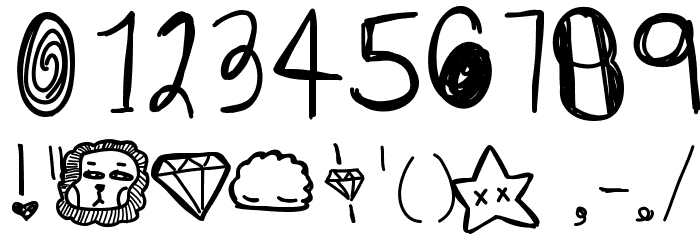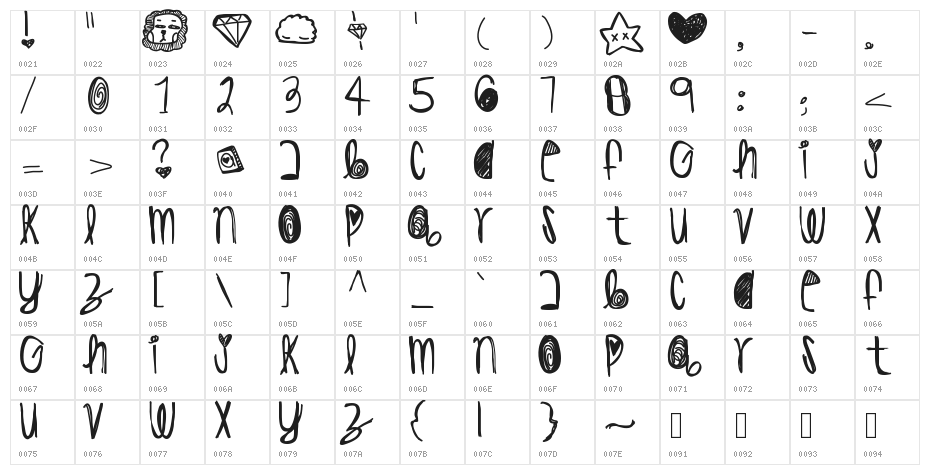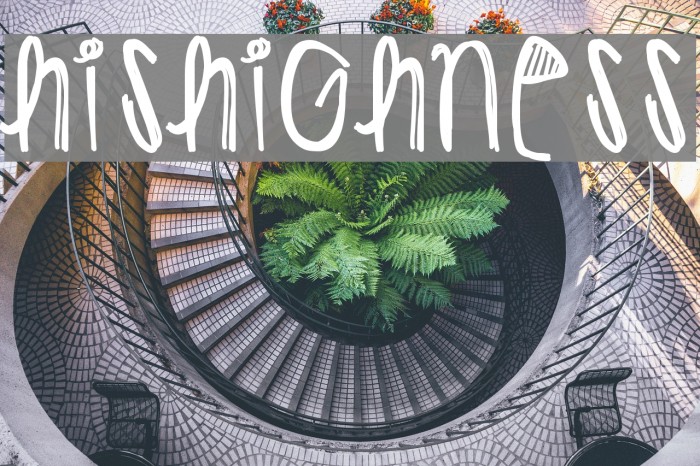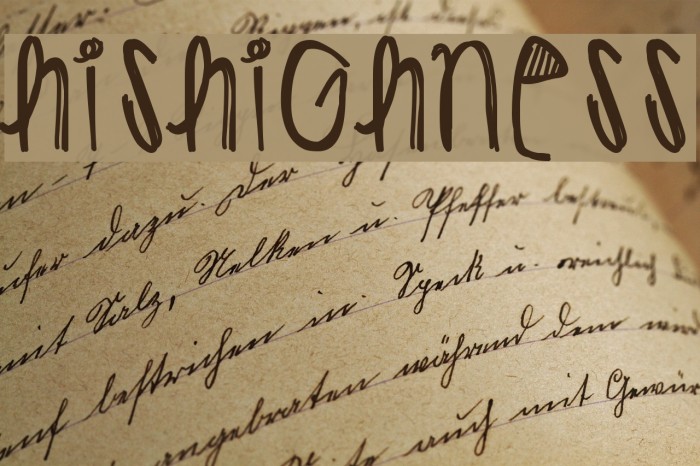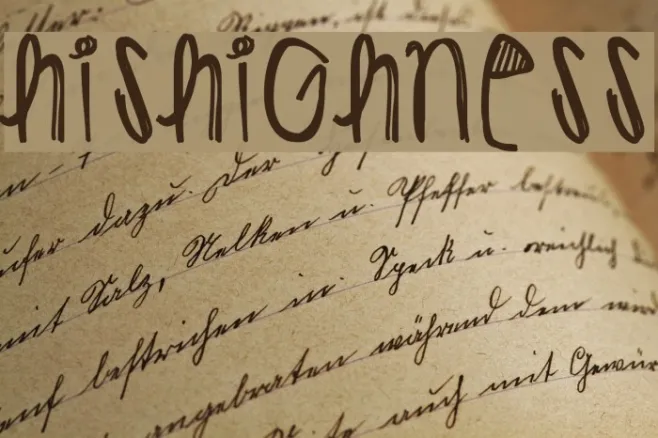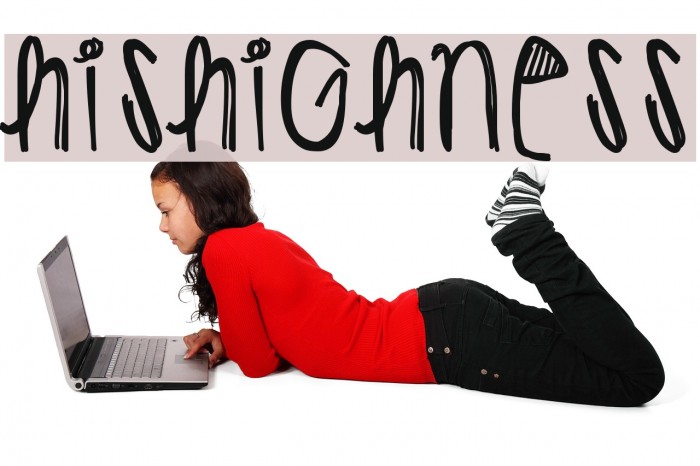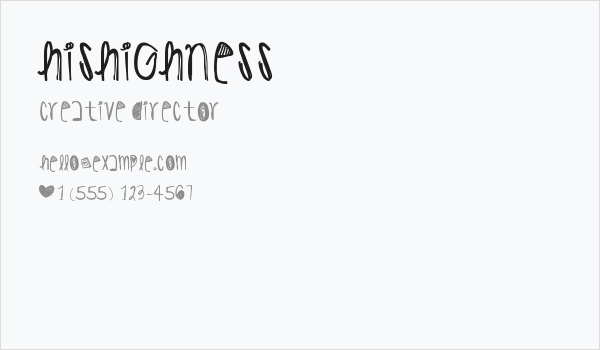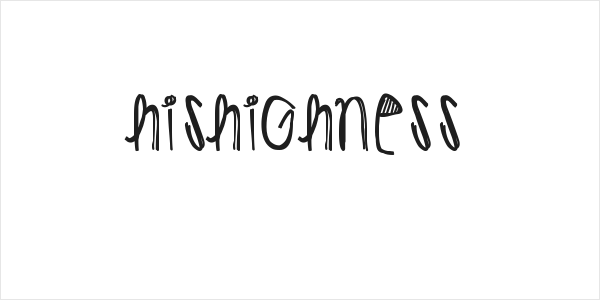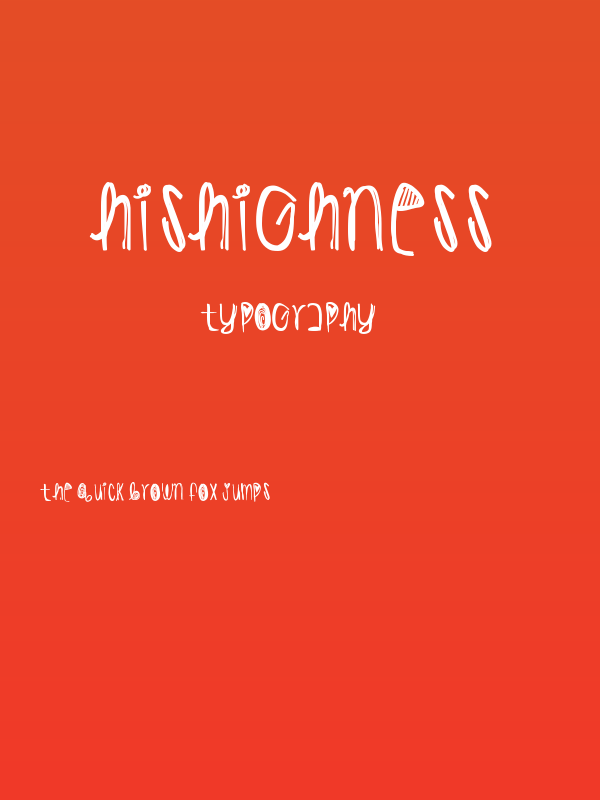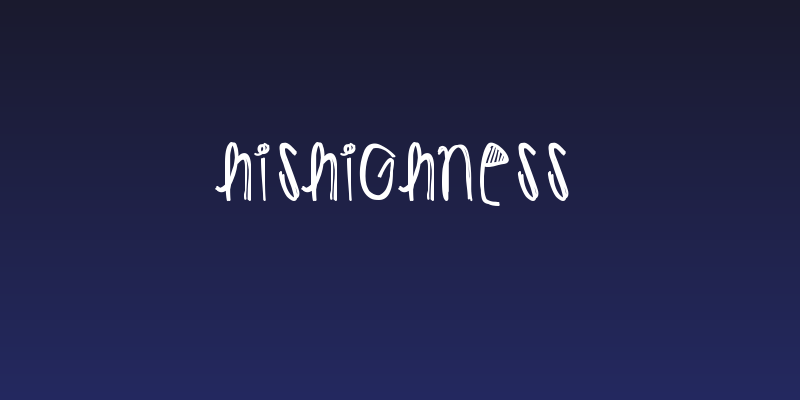
HisHighness Font
HisHighness Description
This playful and whimsical font features a hand-drawn style with a unique and quirky character set. Each letter is distinct, with varying stroke thicknesses and playful embellishments, such as hearts and swirls, adding a sense of fun and creativity. The numbers and special characters maintain this lively style, making the font suitable for projects that require a touch of personality and charm. The overall appearance is informal and artistic, perfect for designs that aim to capture attention with a creative flair.
| Proposed Projects | Ideal for children's book covers, playful branding, greeting cards, and creative posters. |